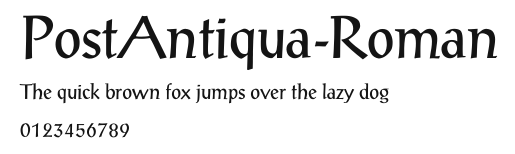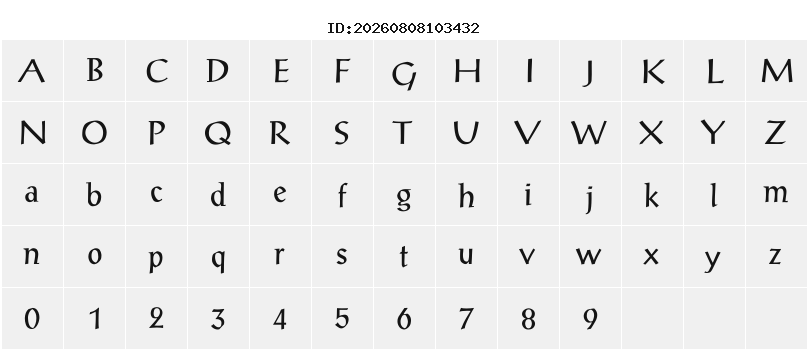
PostAntiqua-Roman Preview
About PostAntiqua-Roman.ttf
PostAntiqua-Roman.ttf is a modern, elegant sans-serif font designed for ultimate readability and visual harmony. Perfect for branding, headlines, web design, and print materials.